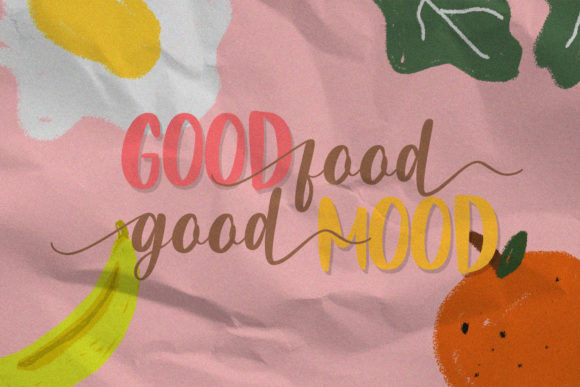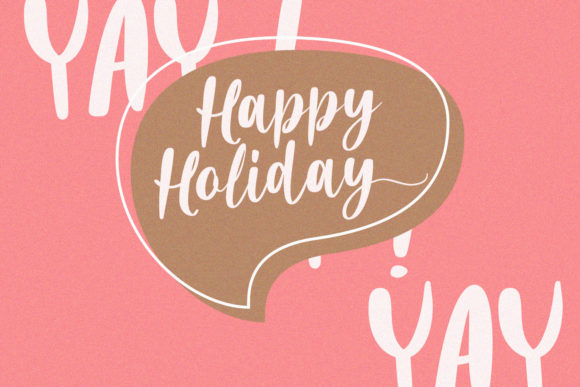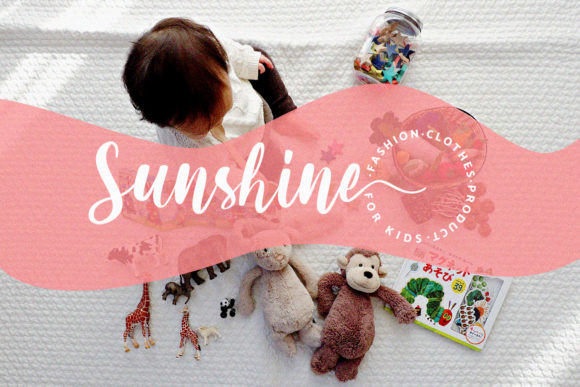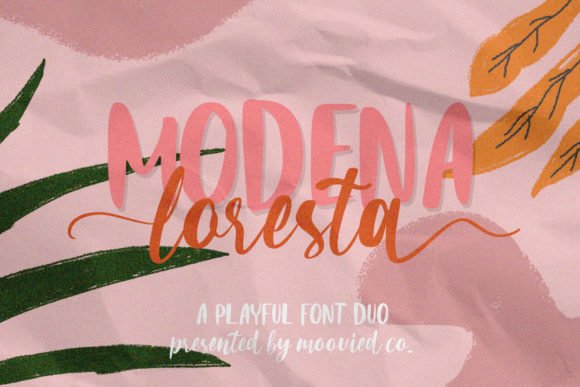
Introduction to Modena Loresta Duo Font
Modena Loresta Duo is an amazing match.
The script style matches perfectly with the sans serif style Combining these two fonts on your next design will give a modern and cute feel.
Why Choose Modena Loresta Duo Font?